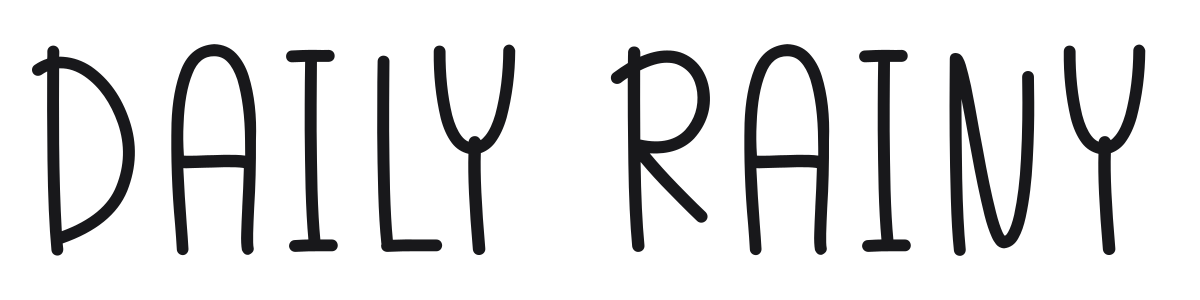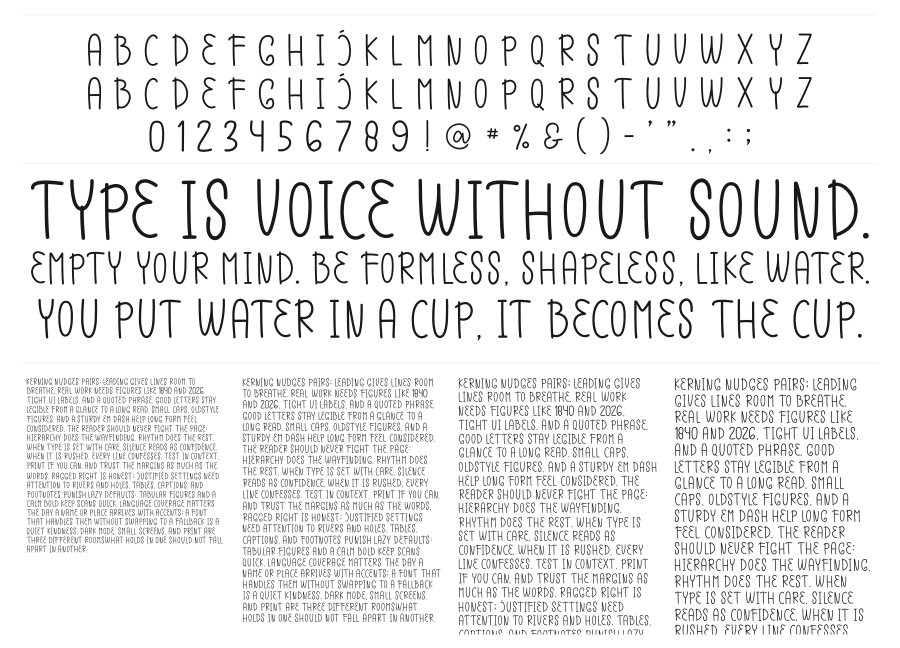
Daily Rainy
Daily Rainy is a hand-drawn display font from RahagitaStudio with tall, narrow characters and a loose, pen-written rhythm. Subtle irregularities in stroke weight and letter height give it genuine handwritten warmth without feeling sloppy. It works well on packaging, greeting cards, social media graphics, and anywhere a friendly human touch is needed.